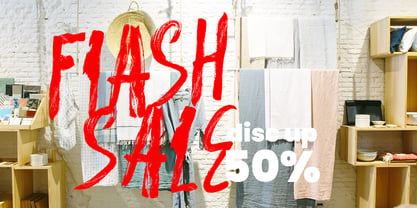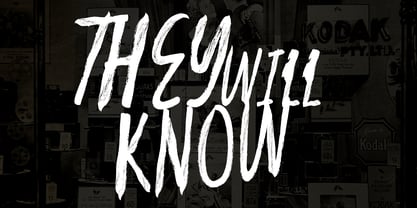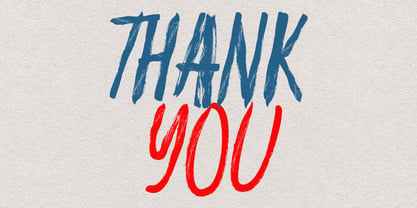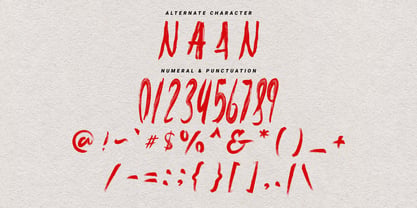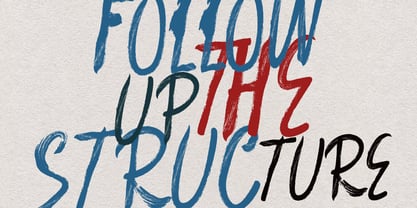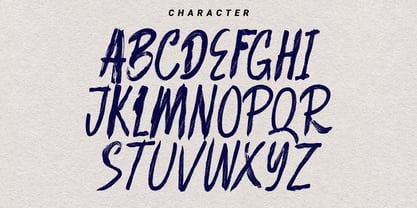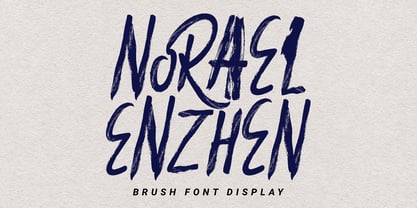
MC Norael Enzhen
by Maulana Creative
The MC Norael Enzhen Font Family was designed by Gilang Maulana and published by Maulana Creative. MC Norael Enzhen contains 1 styles. More about this family
Norael Enzhen handmade brush display font display, fun character with alternates and ligatures. To give you an extra creative work. Norael Enzhen handmade brush display font support multilingual language.